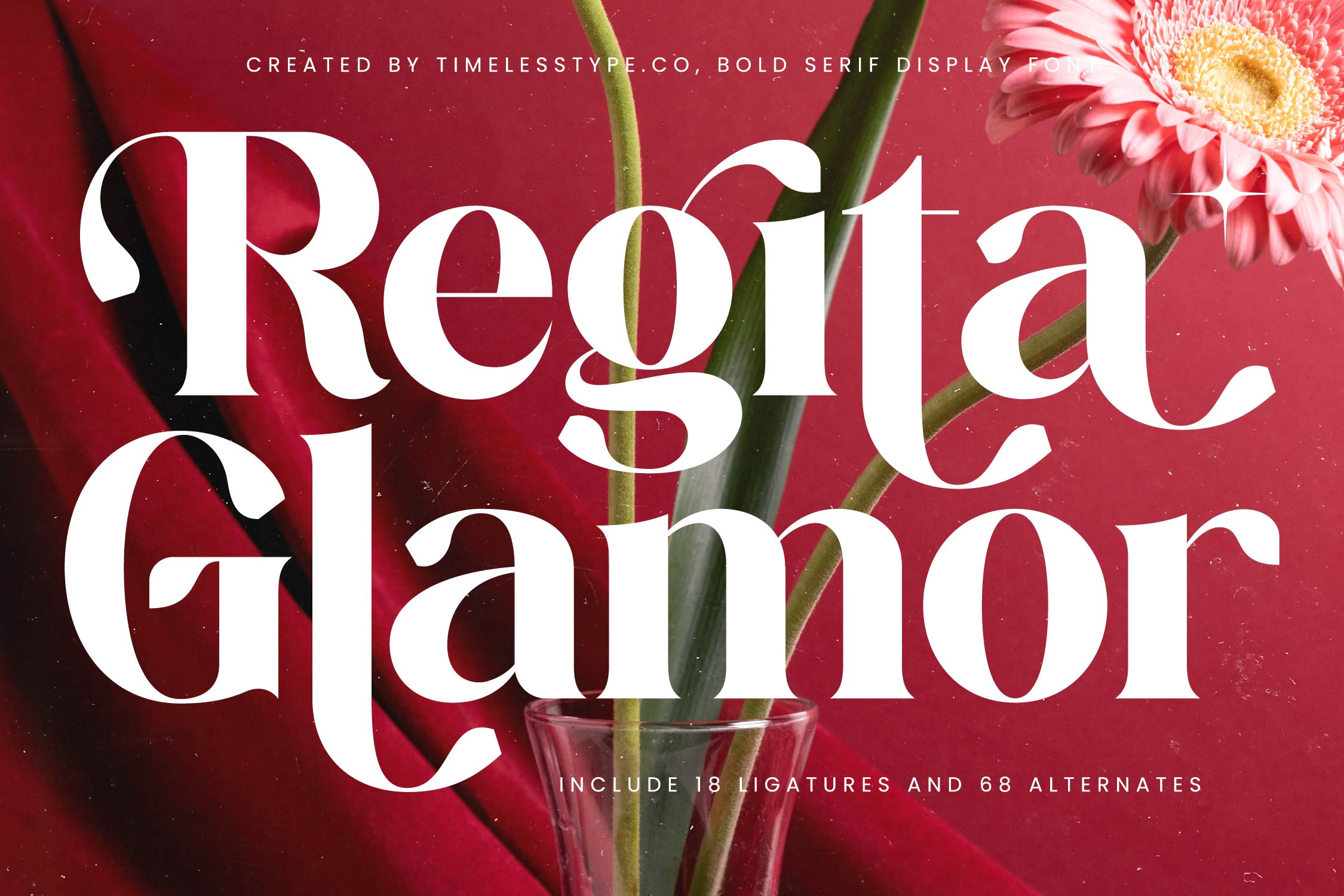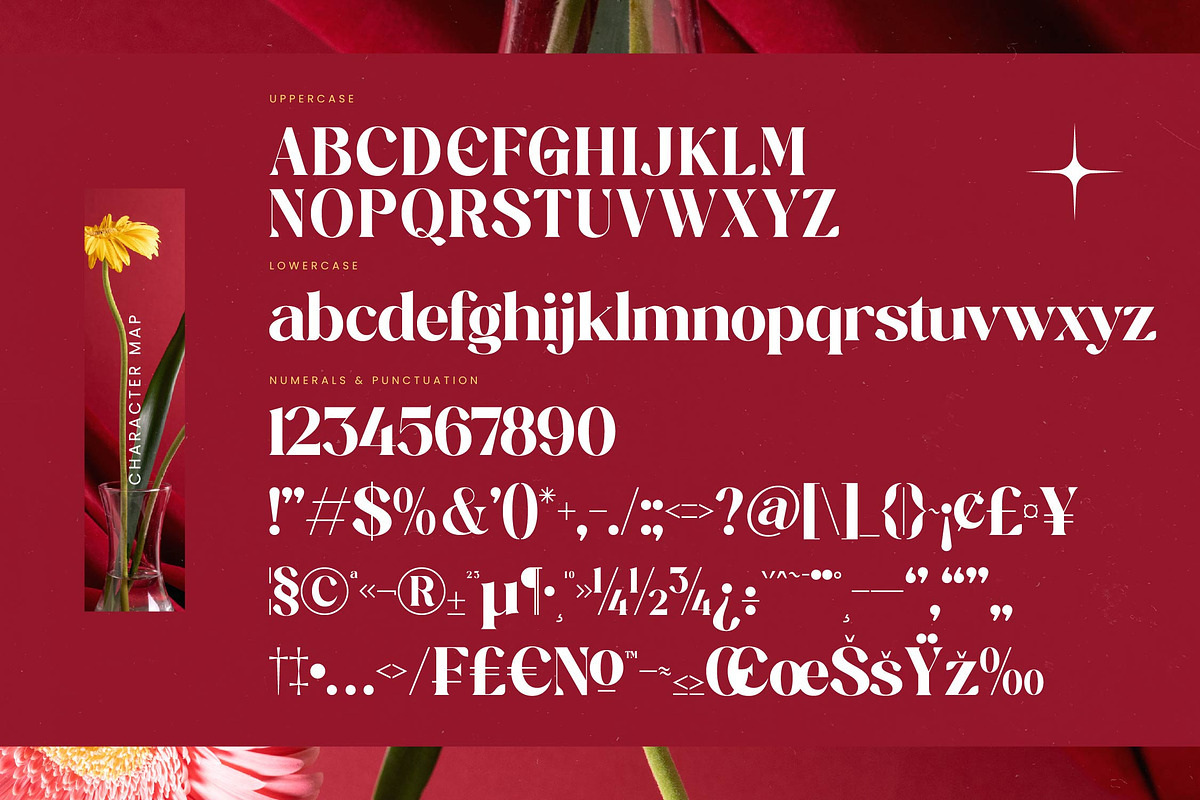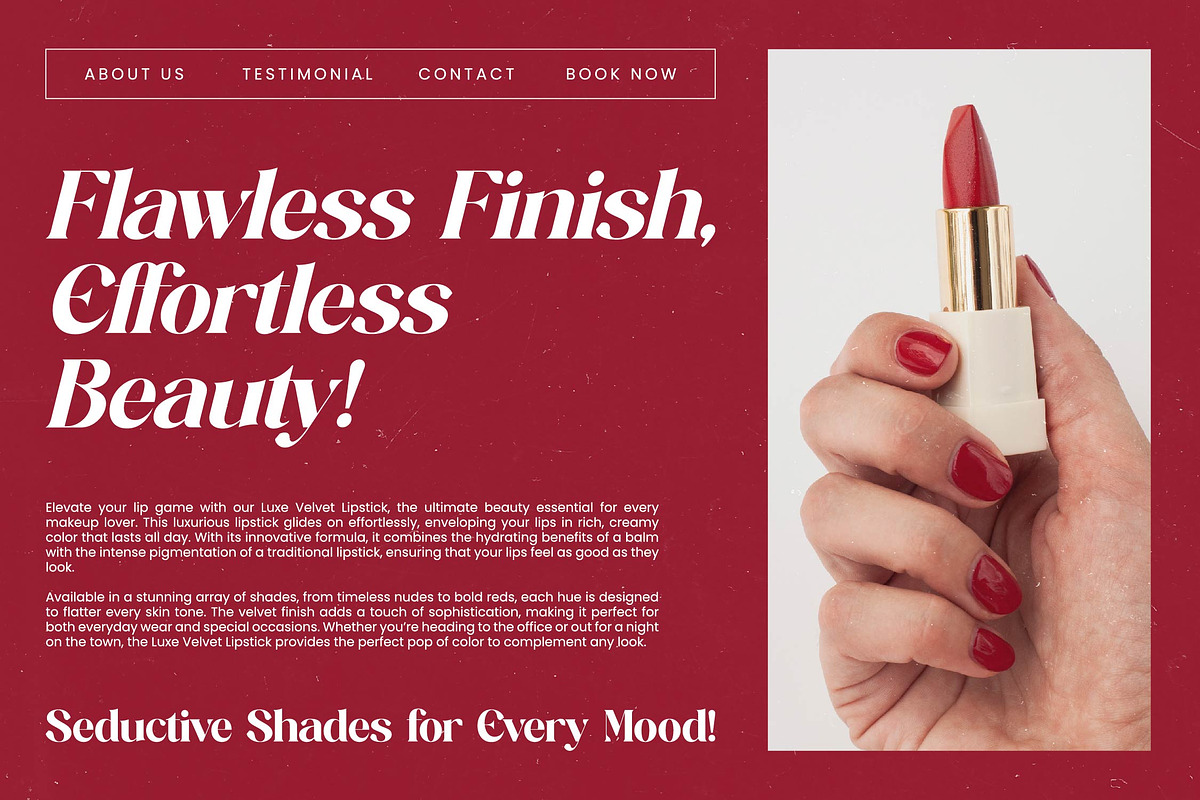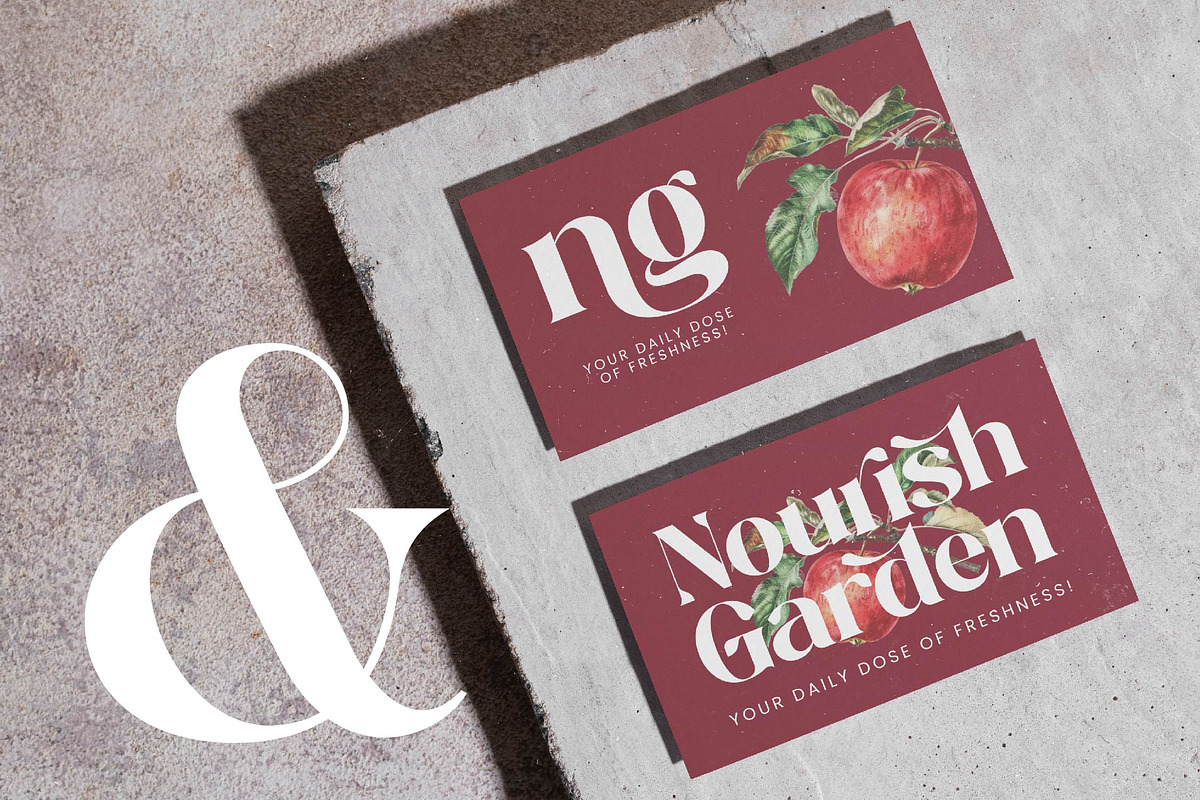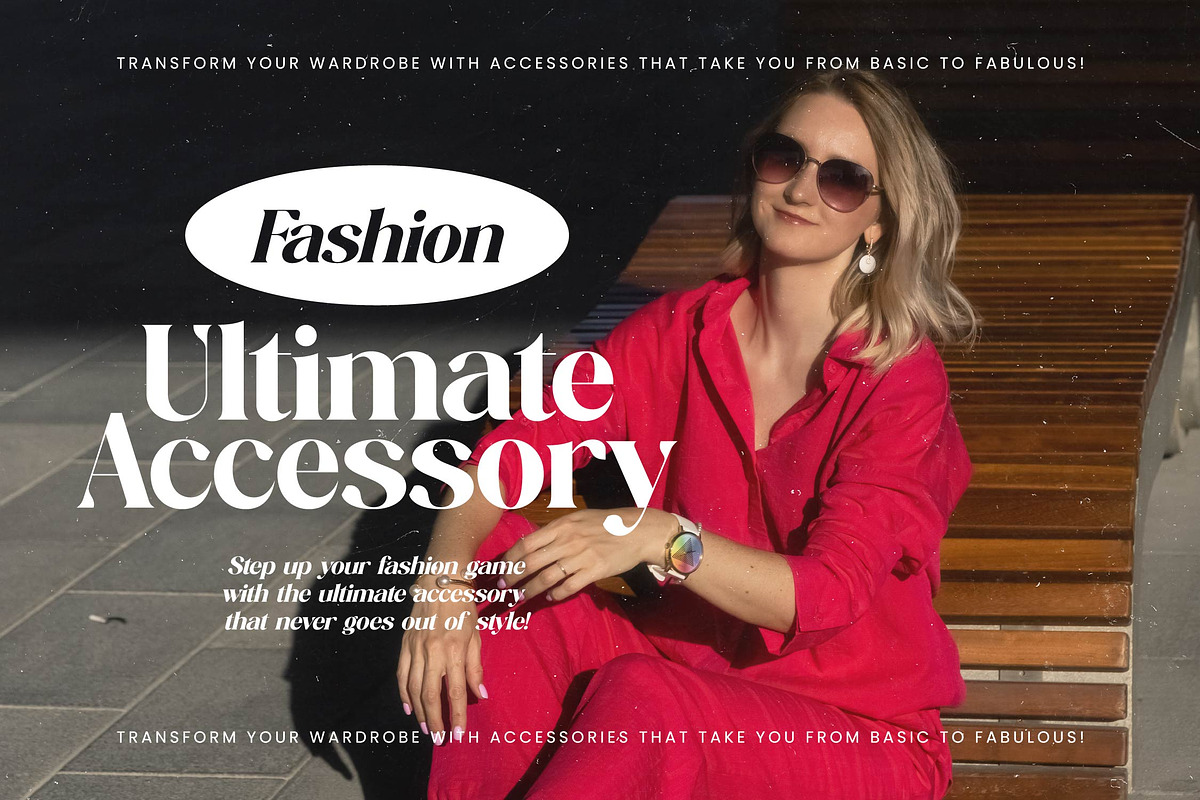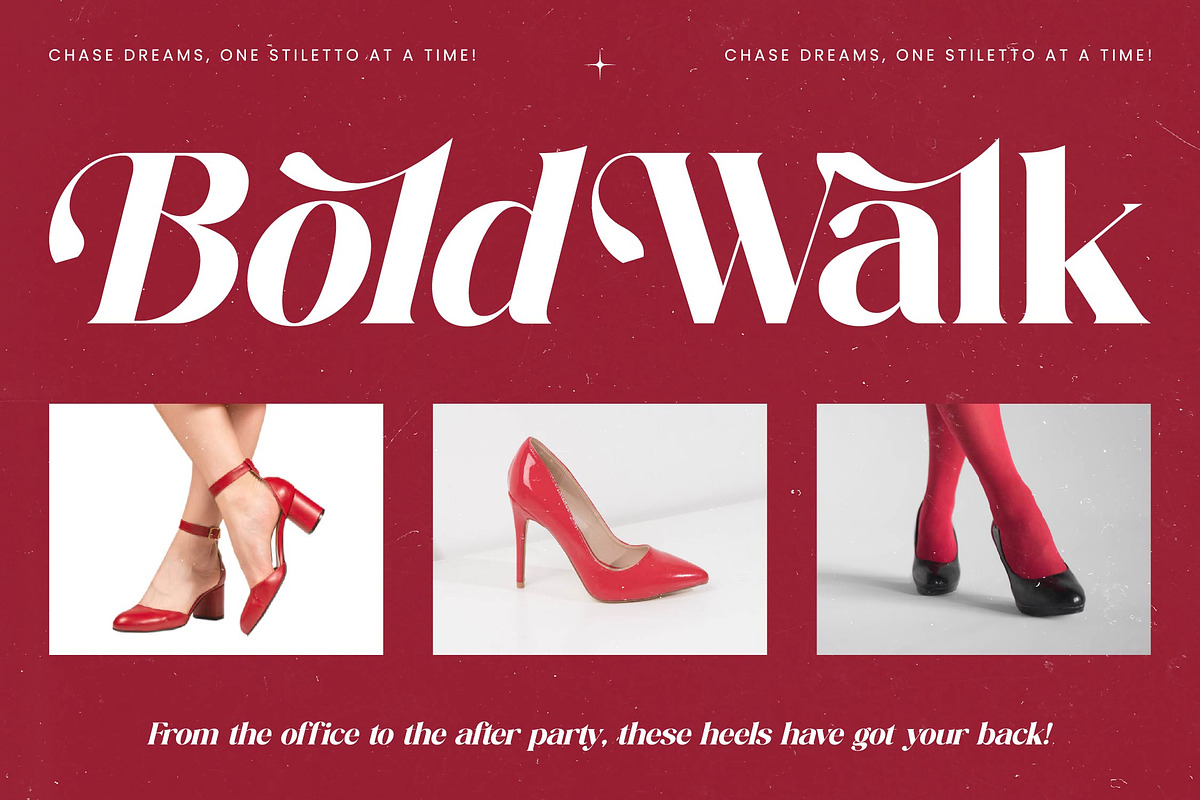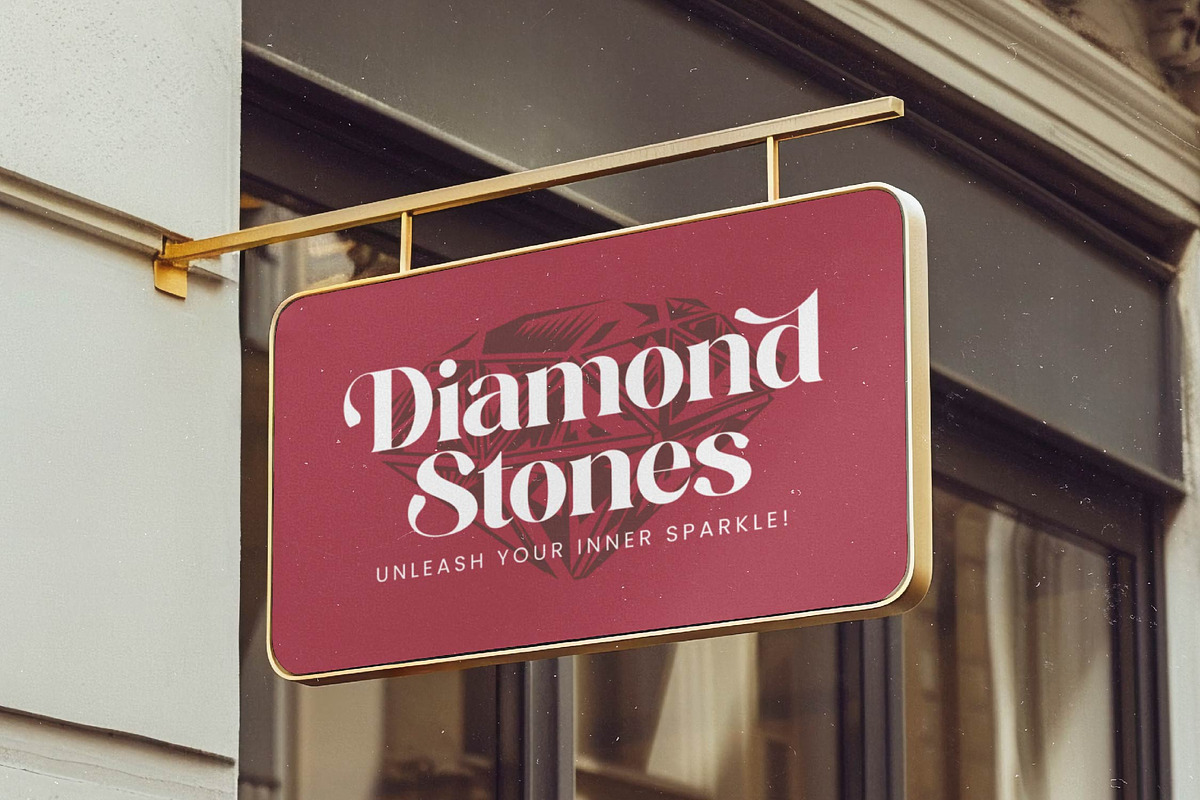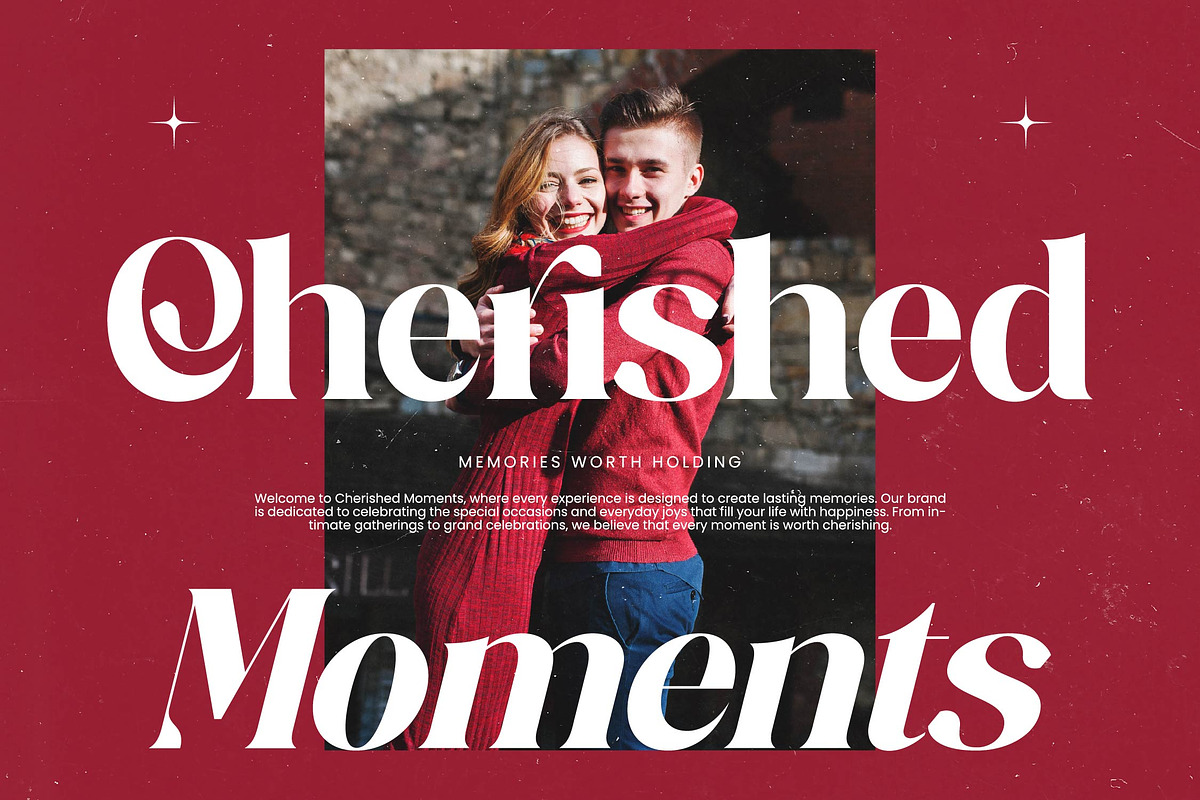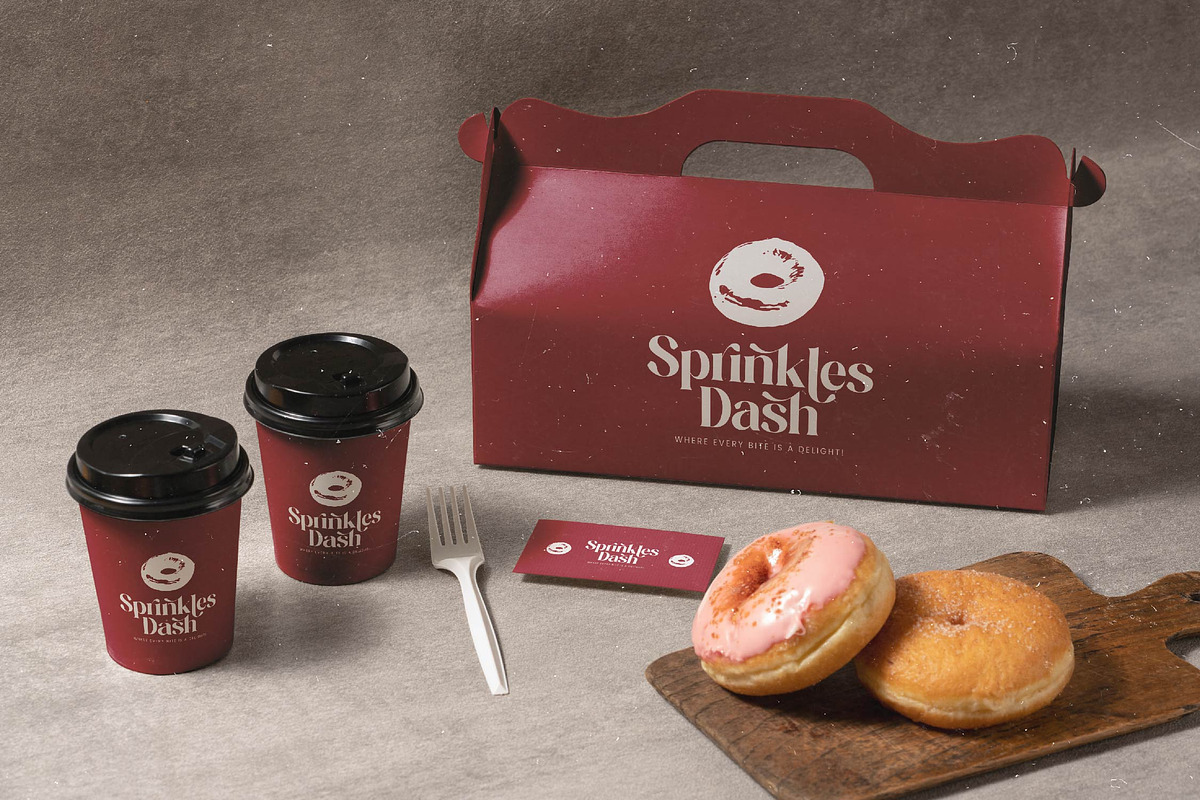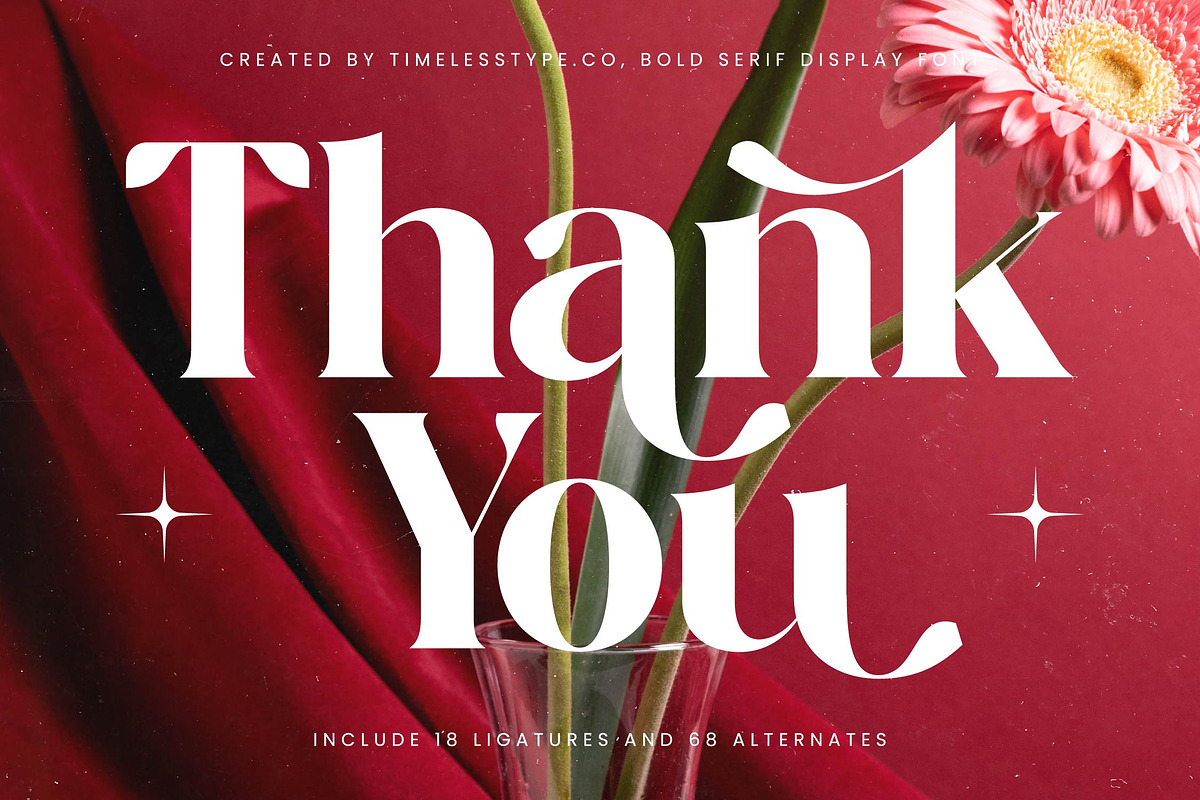
Regita Glamor Luxury Serif Font
Elevate your visual identity to a realm of unparalleled sophistication with Regita Glamor, a font that redefines the standards of contemporary elegance. This typeface is a masterclass in balance, offering a harmonious blend of bold presence and delicate, flowing details that capture the eye instantly.
Drawing inspiration from the golden era of high-fashion editorials and the timeless allure of red-carpet glamour, this font evokes a sense of prestige and history. It is designed to mirror the grace of organic floral forms and the luxurious texture of velvet, creating a visual atmosphere that feels both classic and refreshingly new.
As a modern serif display, this typeface commands attention through its luxury typography and high-contrast serif strokes. It serves as an essential editorial font for those who prioritize a strong branding impact, providing a unique personality that oscillates between powerful authority and soft, artistic expression.
Perfectly aligned with the current modern serif trend, this font responds to the growing demand for editorial display fonts that offer more than just standard shapes. It represents the pinnacle of character-driven typography, allowing designers to break away from sterile minimalism and embrace a more expressive, storytelling visual language.
Whether you are crafting a high-end logo design or developing a comprehensive branding system, this typeface excels in editorial layouts and luxury packaging. Its romantic curves make it an ideal choice for wedding invitations and fashion magazine mastheads where every letter needs to exude premium quality.
The versatility of this package is enhanced by a rich selection of ligatures and alternates that provide endless customization possibilities for unique wordmarks. With its extensive set of international characters and full multilingual support including elegant swashes, you can ensure your message reaches a global audience without losing its distinctive charm.